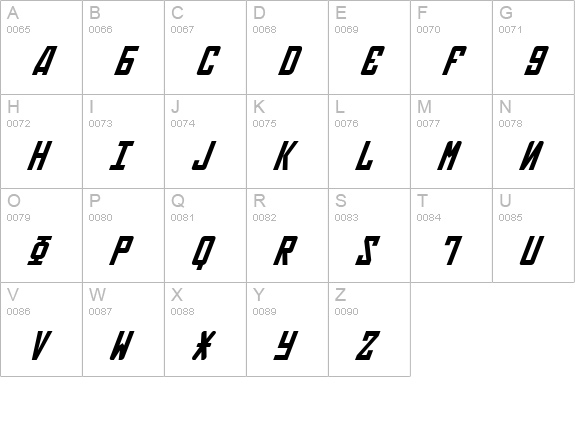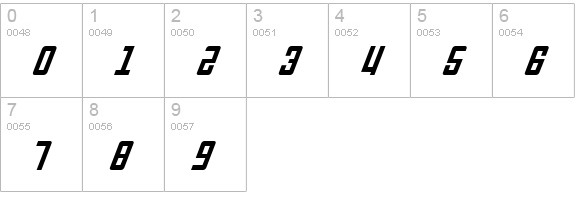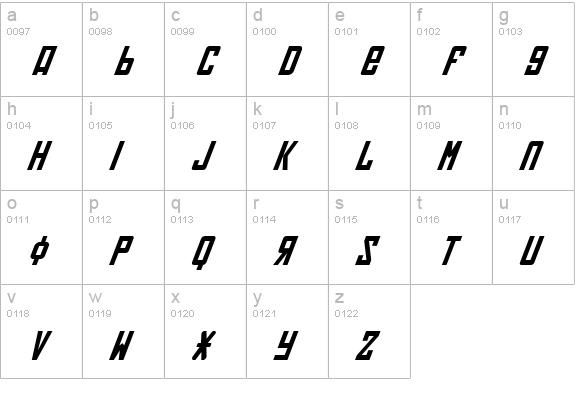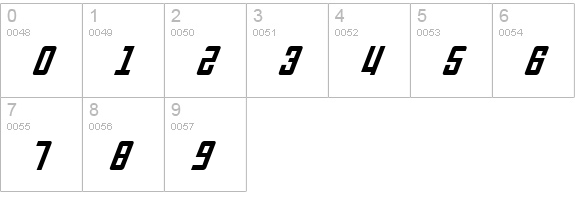
Soviet Italic is a distinctive, italic variant in the Soviet typeface family \xE2\x80\x94 well suited to design and typography projects.
Introducing the captivating and timeless Soviet Italic font. With its bold and distinct strokes, this font encapsulates the spirit of the Soviet era, evoking a sense of strength, resilience, and revolutionary energy. The Soviet Italic font is a perfect fusion of classic elegance and modern design, making it a versatile choice for a wide range of projects. This font's unique Italic style adds a touch of sophistication and fluidity to any text, making it ideal for branding, headlines, posters, logos, and much more. Its carefully crafted letterforms create a harmonious balance between legibility and artistic expression, ensuring that your message stands out with undeniable impact. What makes the Soviet Italic font even more remarkable is that it is freely available to download at FontsMarket.com. Yes, you heard it right! This extraordinary font can be yours without any cost, allowing you to experience the beauty and power it exudes in your projects. Whether you are a designer, writer, or simply a lover of remarkable typography, the Soviet Italic font is a must-have in your collection. Its bold presence and timeless appeal will undoubtedly elevate your creations to new heights. Download the Soviet Italic font today and unleash your creativity with this exceptional and free typeface, exclusively at FontsMarket.com.